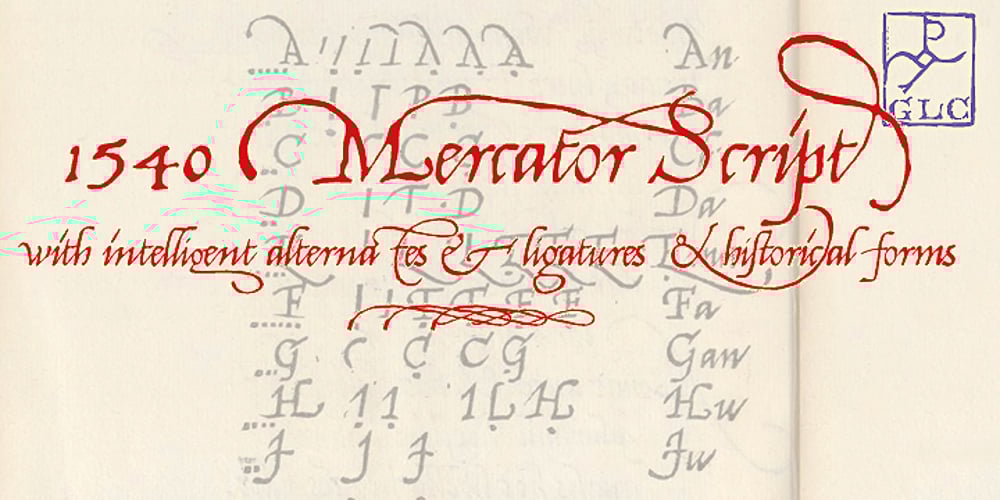
1540 Mercator Script Font Family was designed by published by GLC. 1540 Mercator Script contains 1 styles and family package options. This font was inspired by the so-called Litterarum latinarum, quas italicas, cursoriasque vocant, scribendum Ratio (Louvain 1540), a manual intended for calligraphers by the well known scientist Gerhard Mercator. It was a magnificent “Cancellaresca corsiva” design, enriched with many alternates, final loops and ligatures. We have added a lot of accented and other characters required for modern use that did not exist in the original.